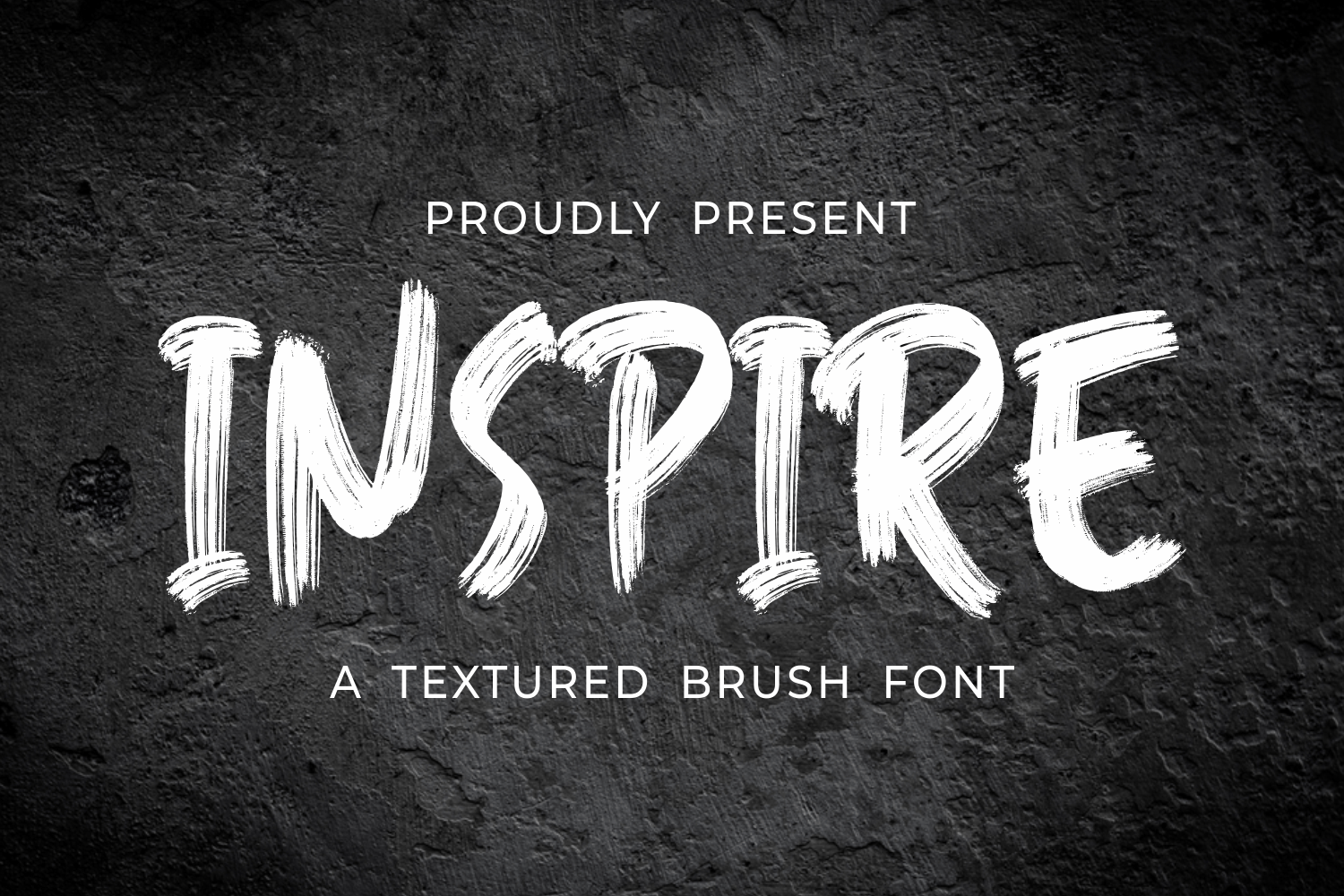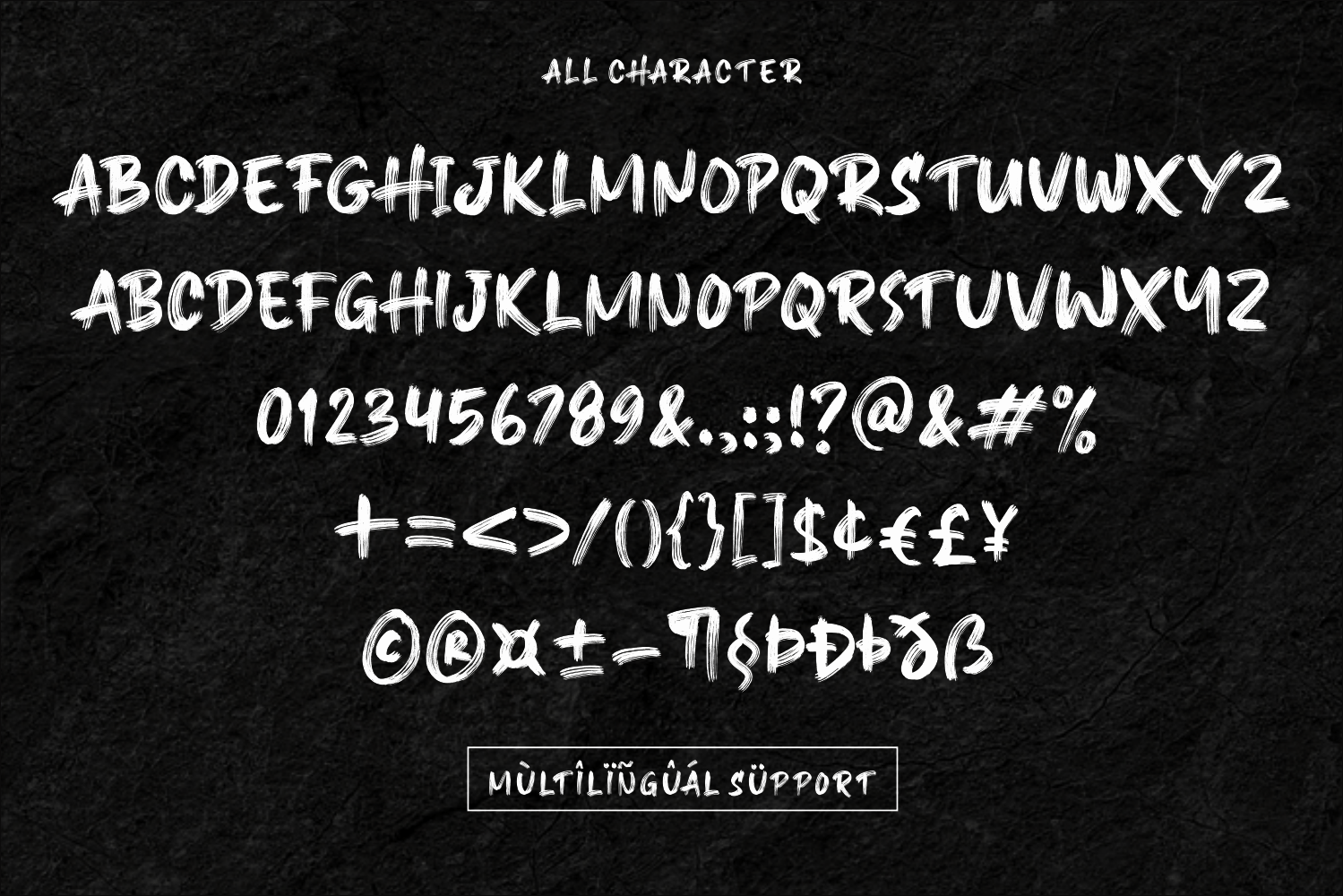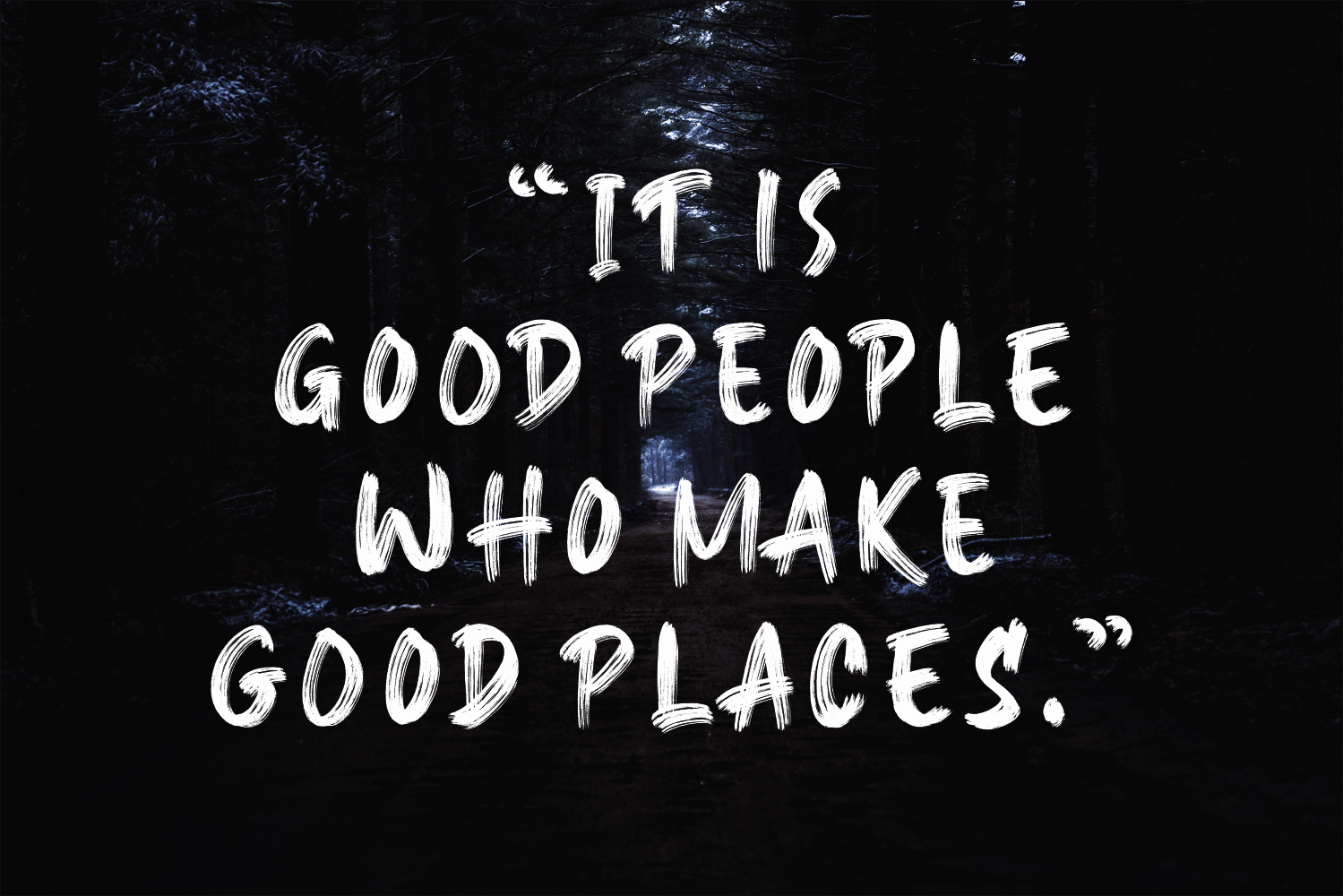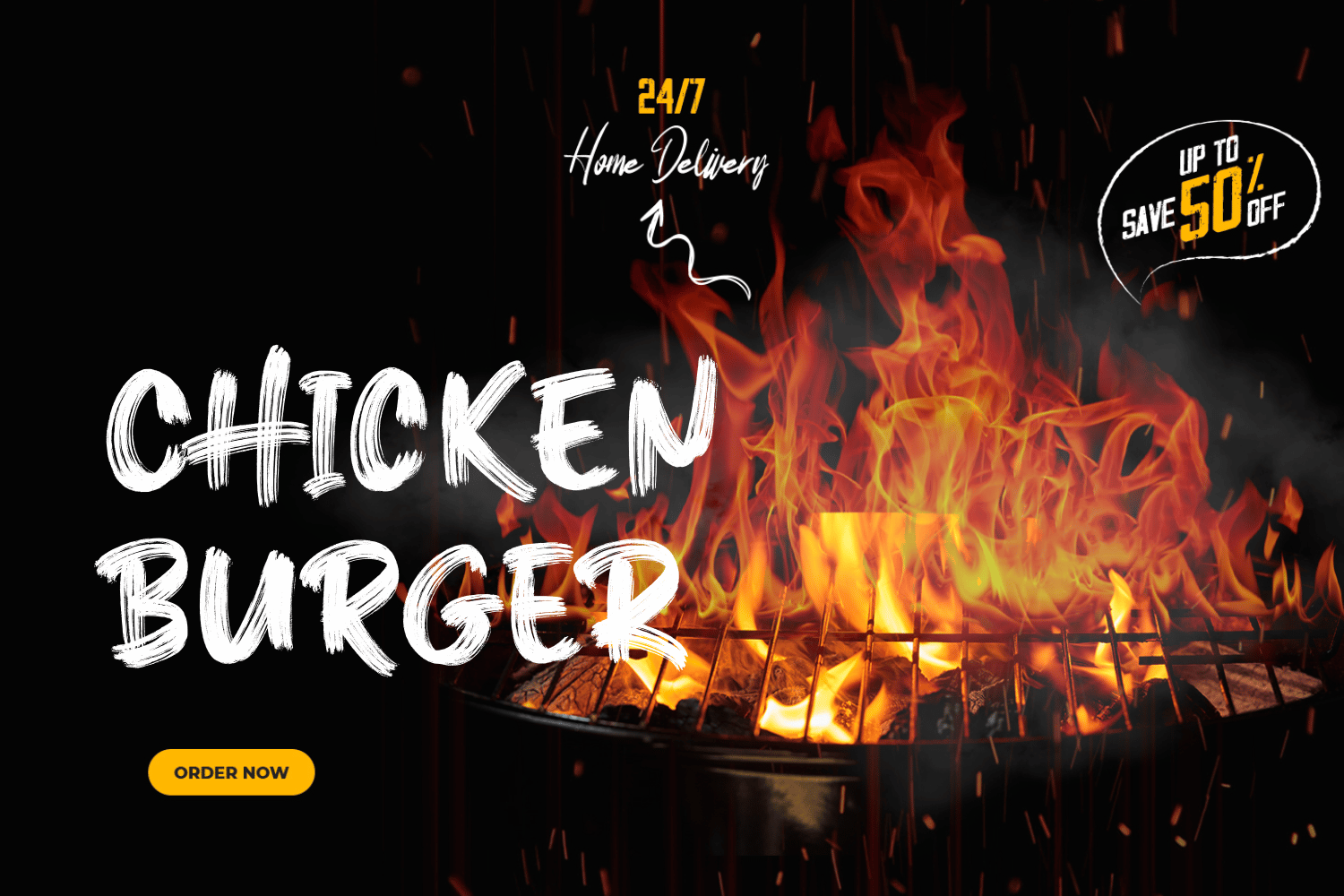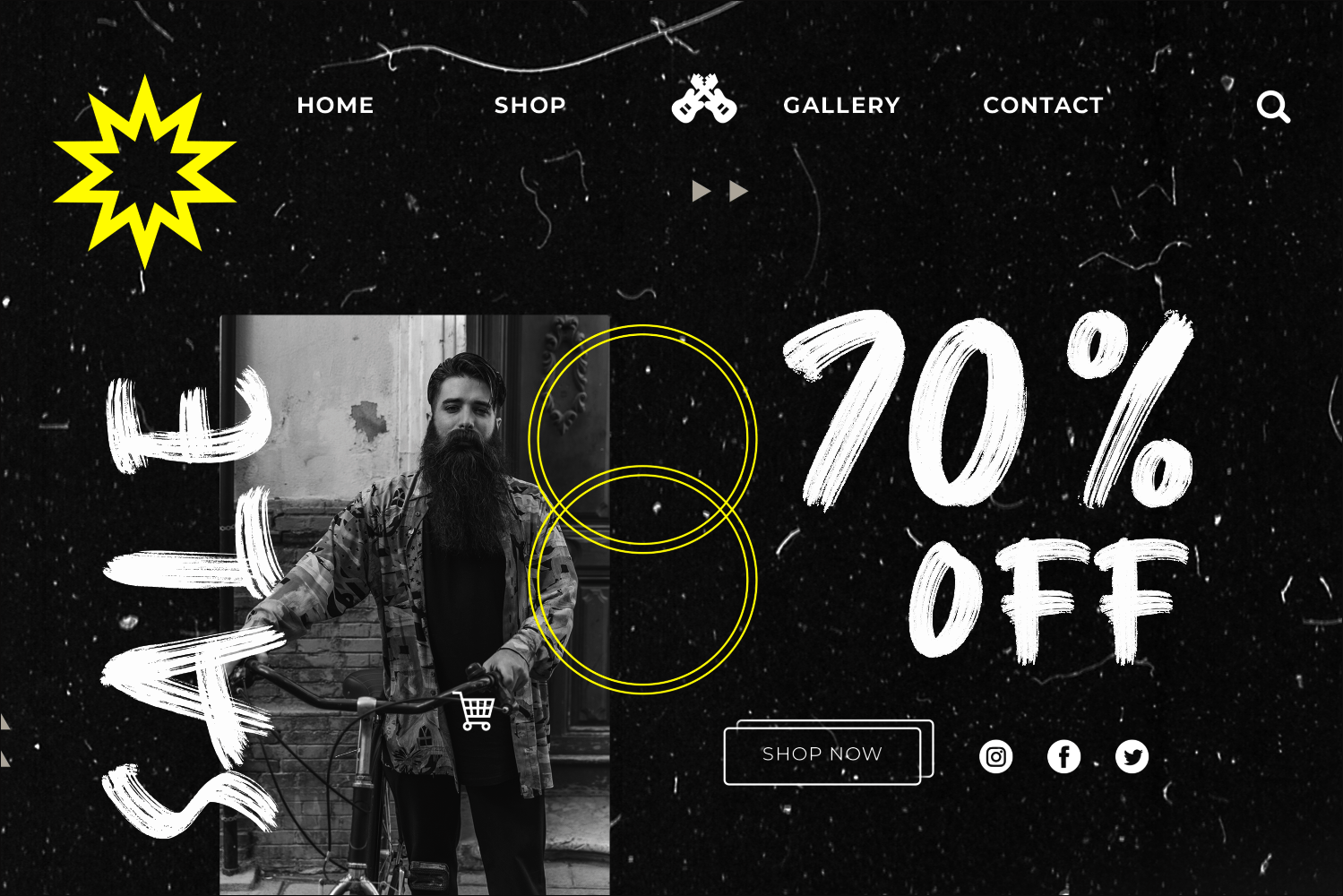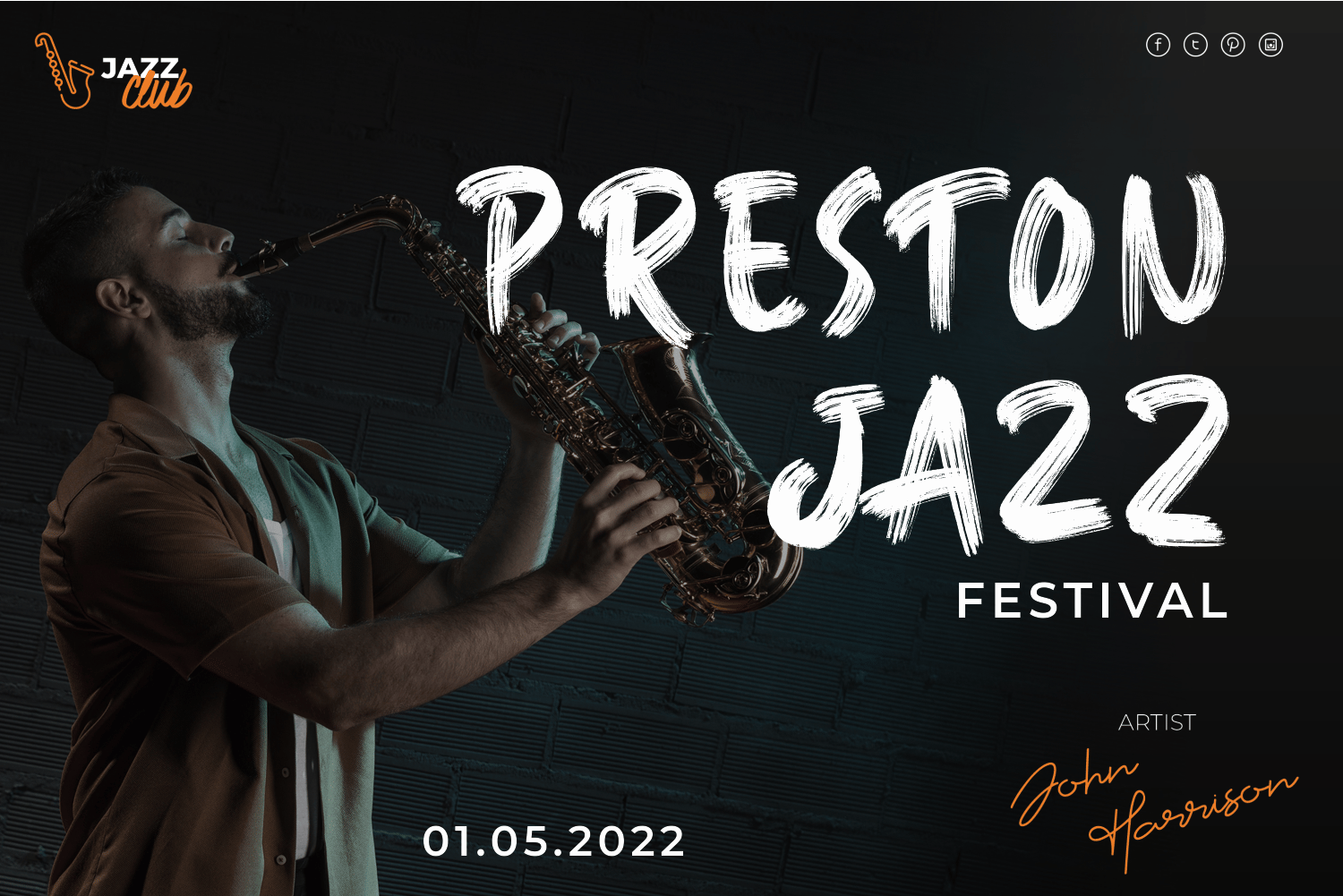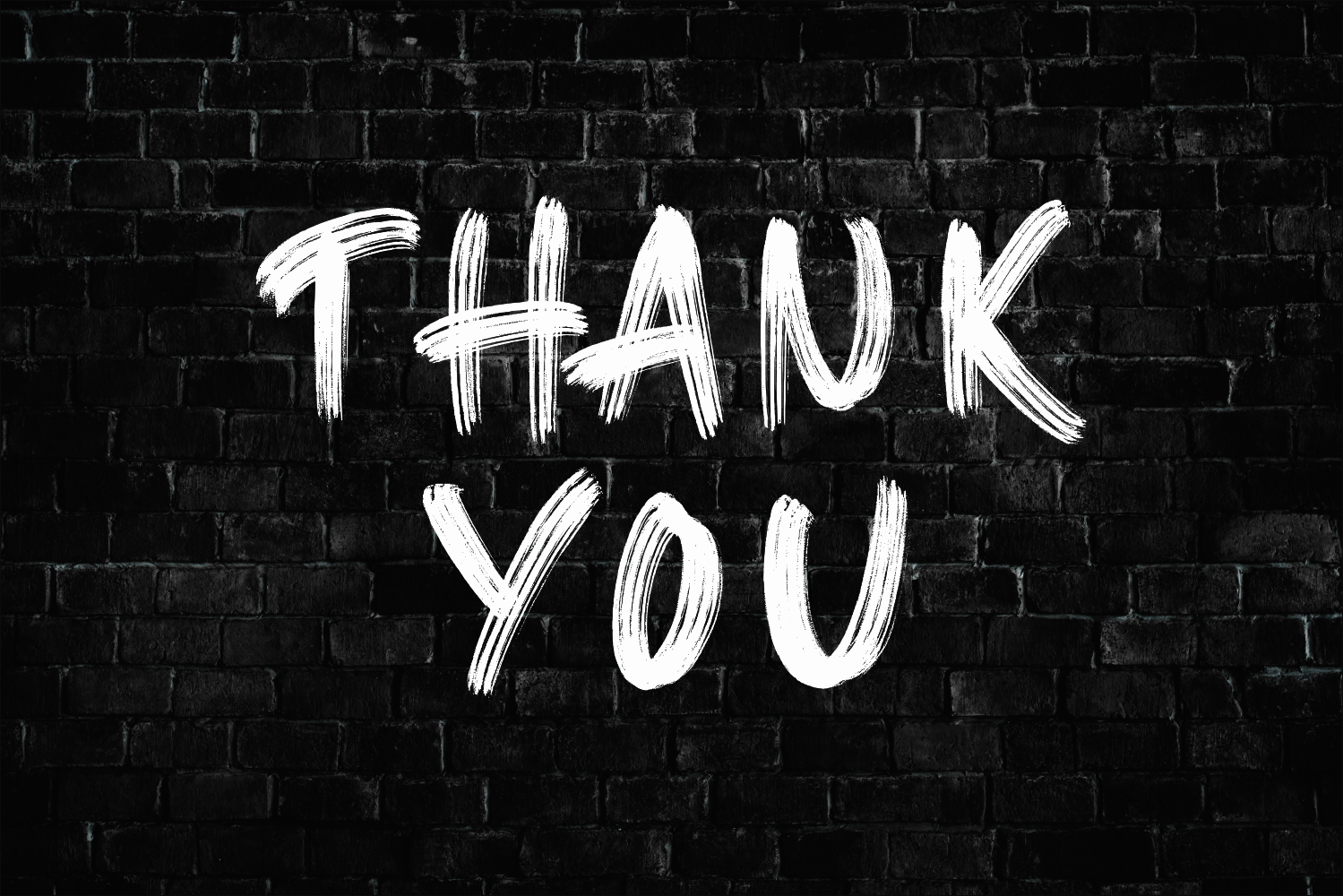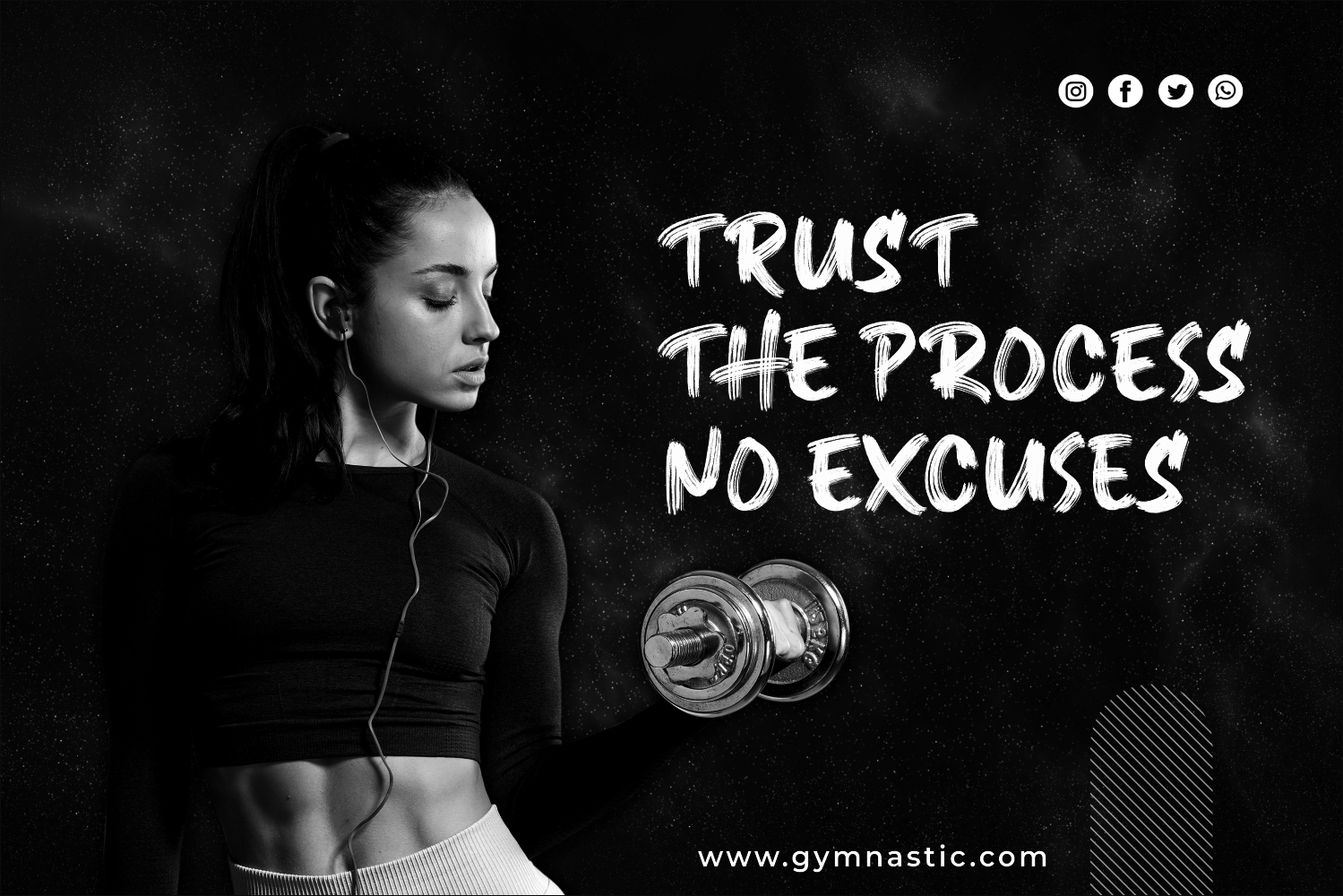
Get ready for summer with Inspire, a bold and textured brush font that brings a vibrant, authentic paintbrush look to your designs. Its tightly spaced letters and brush imperfections create a dynamic contrast between opaque and transparent areas, giving your work a genuine and realistic feel.
Inspire is a casual and fun display font crafted using Procreate, boasting an urban and trendy vibe that complements a wide range of designs. Perfect for sports flyers, music events, Black Friday promotions, discount banners, brand announcements, packaging, quotes, branding, advertisements, blogs, logos, and invitations, this font adds a fresh and energetic touch to any project.
With PUA encoding, Inspire allows for easy access to all its stunning glyphs and swashes, making customization simple and seamless. Download Inspire today and bring a bold, textured brush style to your creative projects!